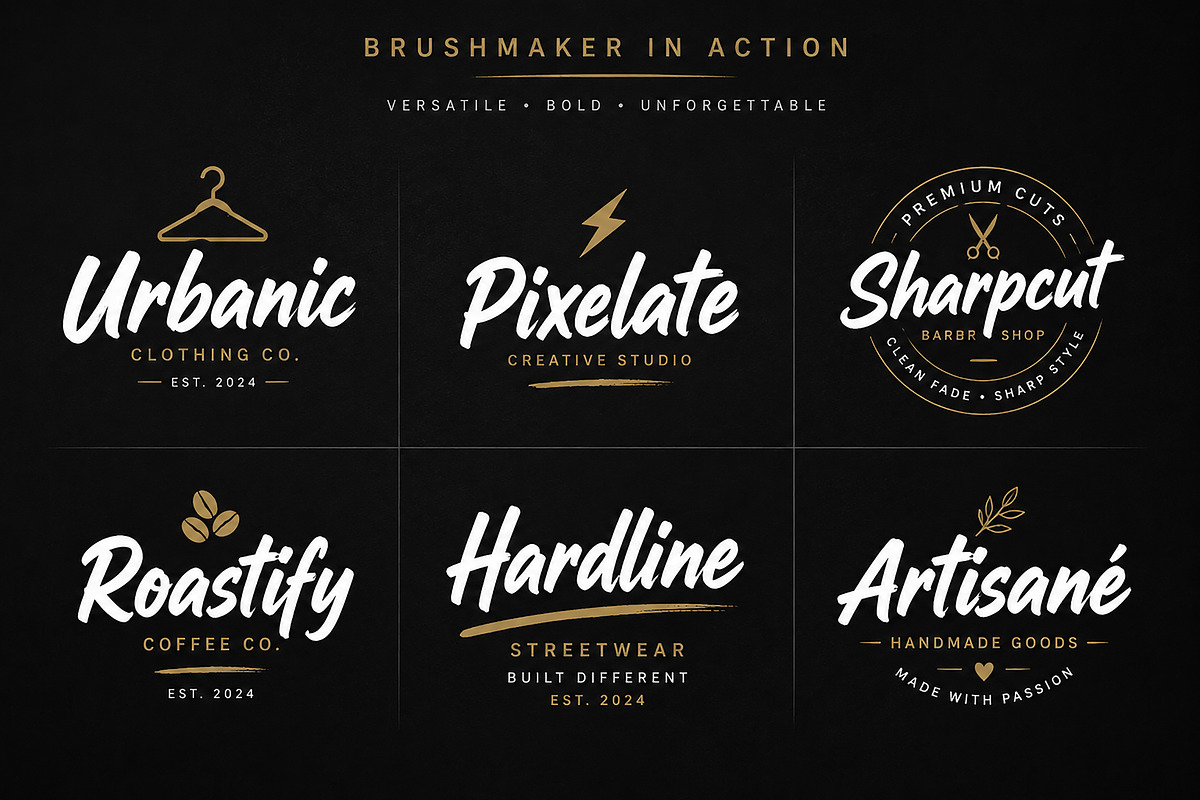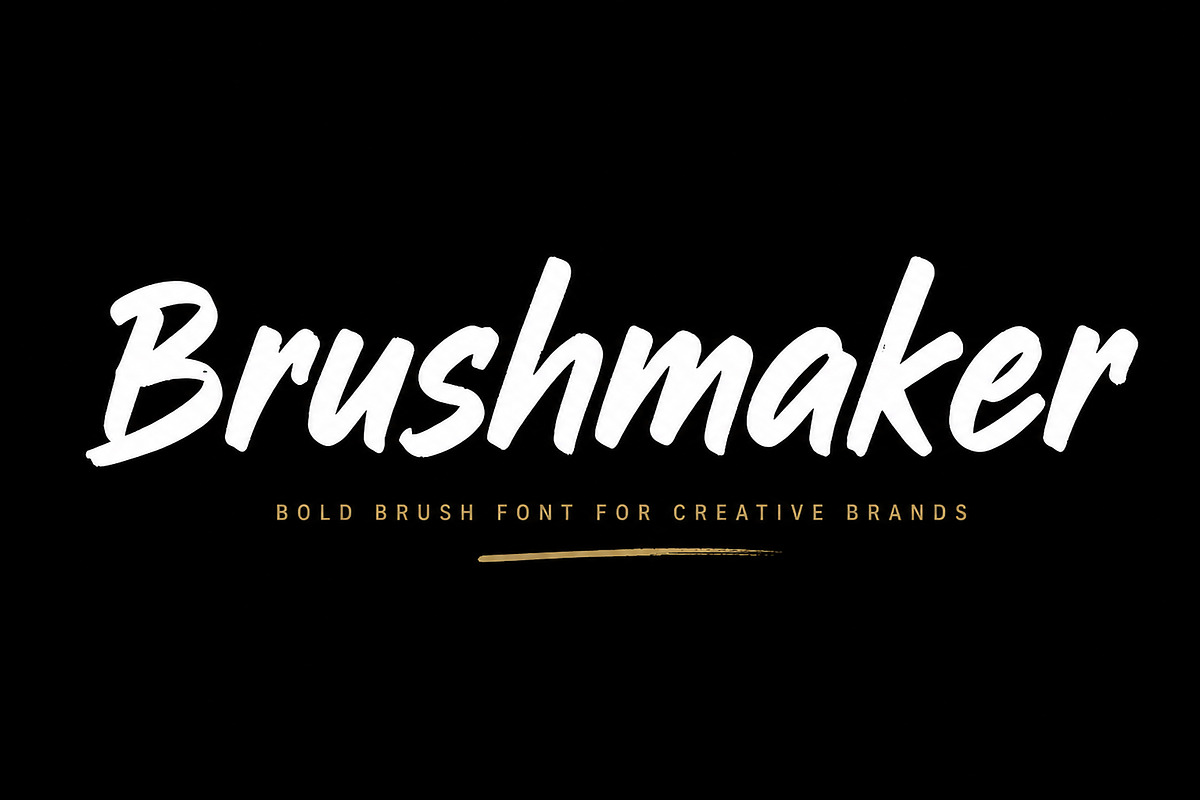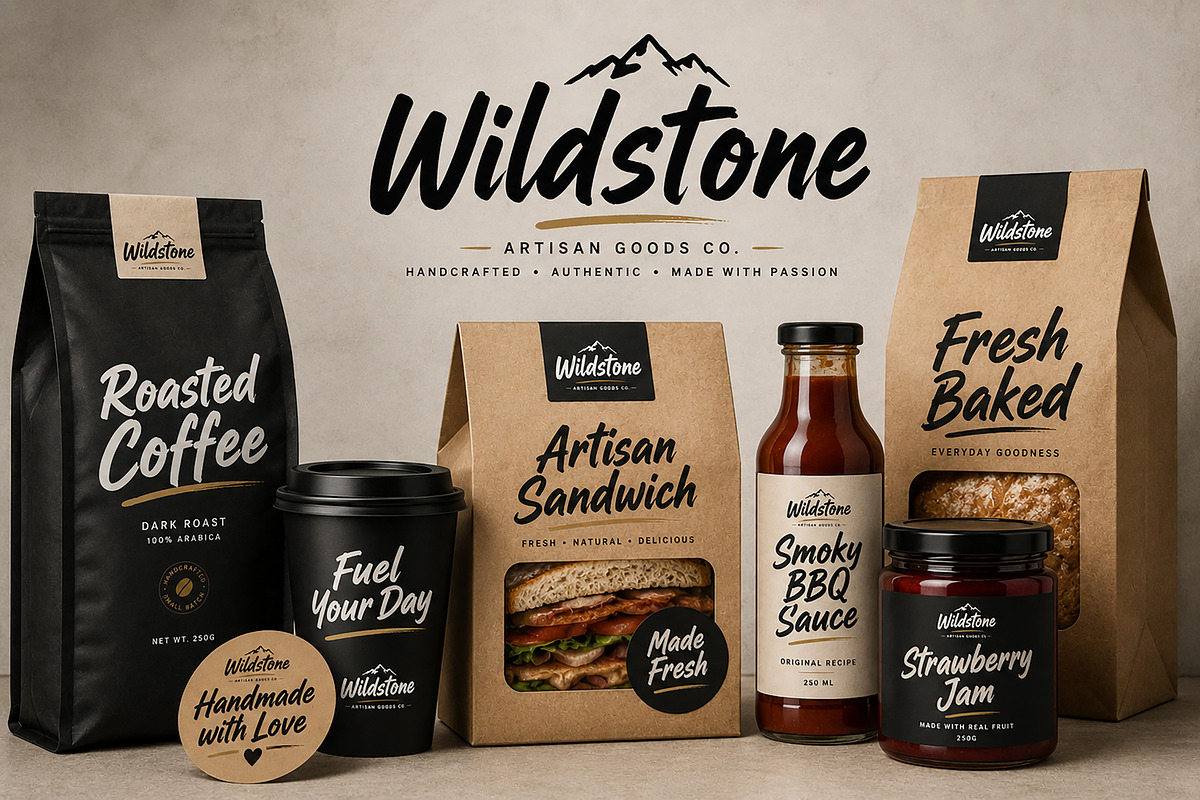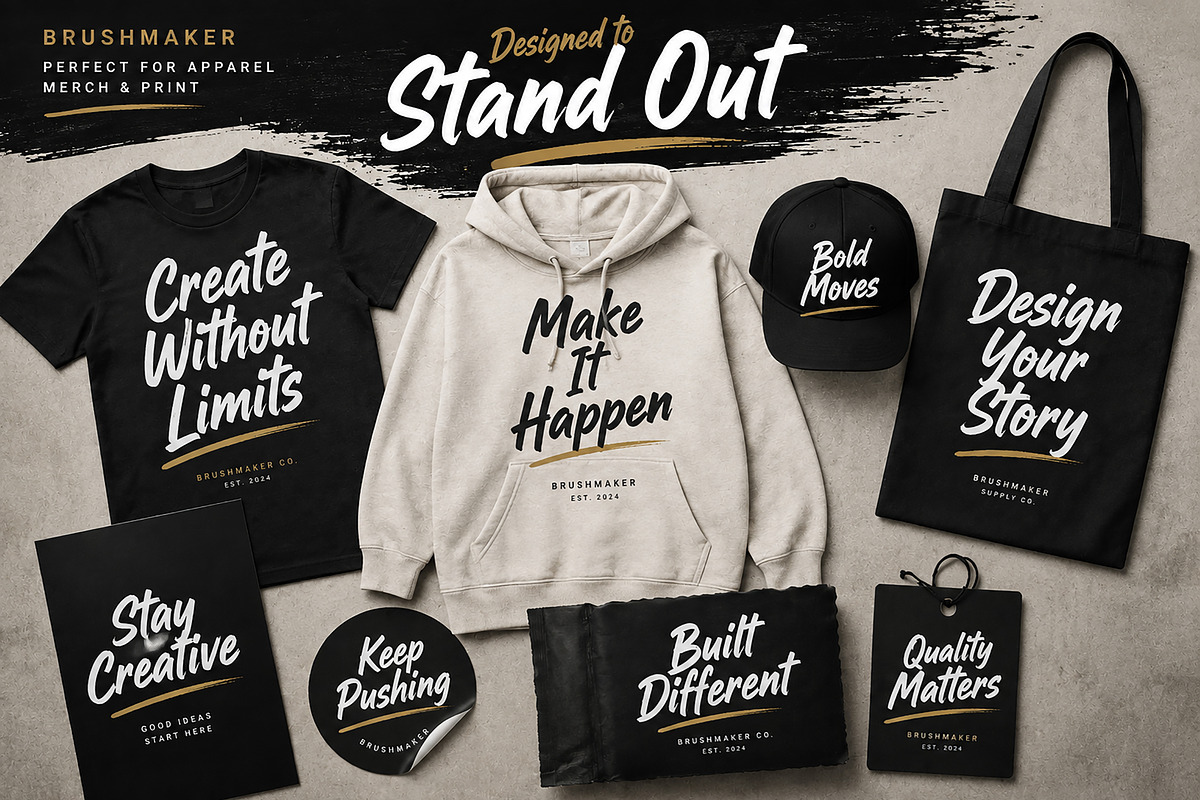
Brushmaker
Brushmaker is a bold and expressive brush script font designed to bring an authentic hand-painted feel to your creative projects. With its dynamic strokes, energetic character, and strong visual presence, Brushmaker is perfect for designs that need a confident, artistic, and handcrafted touch.
Whether you're creating a striking brand identity, apparel graphics, packaging, posters, merchandise, or social media artwork, Brushmaker adds a powerful handmade personality to your typography.
Style: Bold Brush Script / Handwritten
Bring bold brush lettering and an authentic handcrafted aesthetic to your next creative project with Brushmaker.